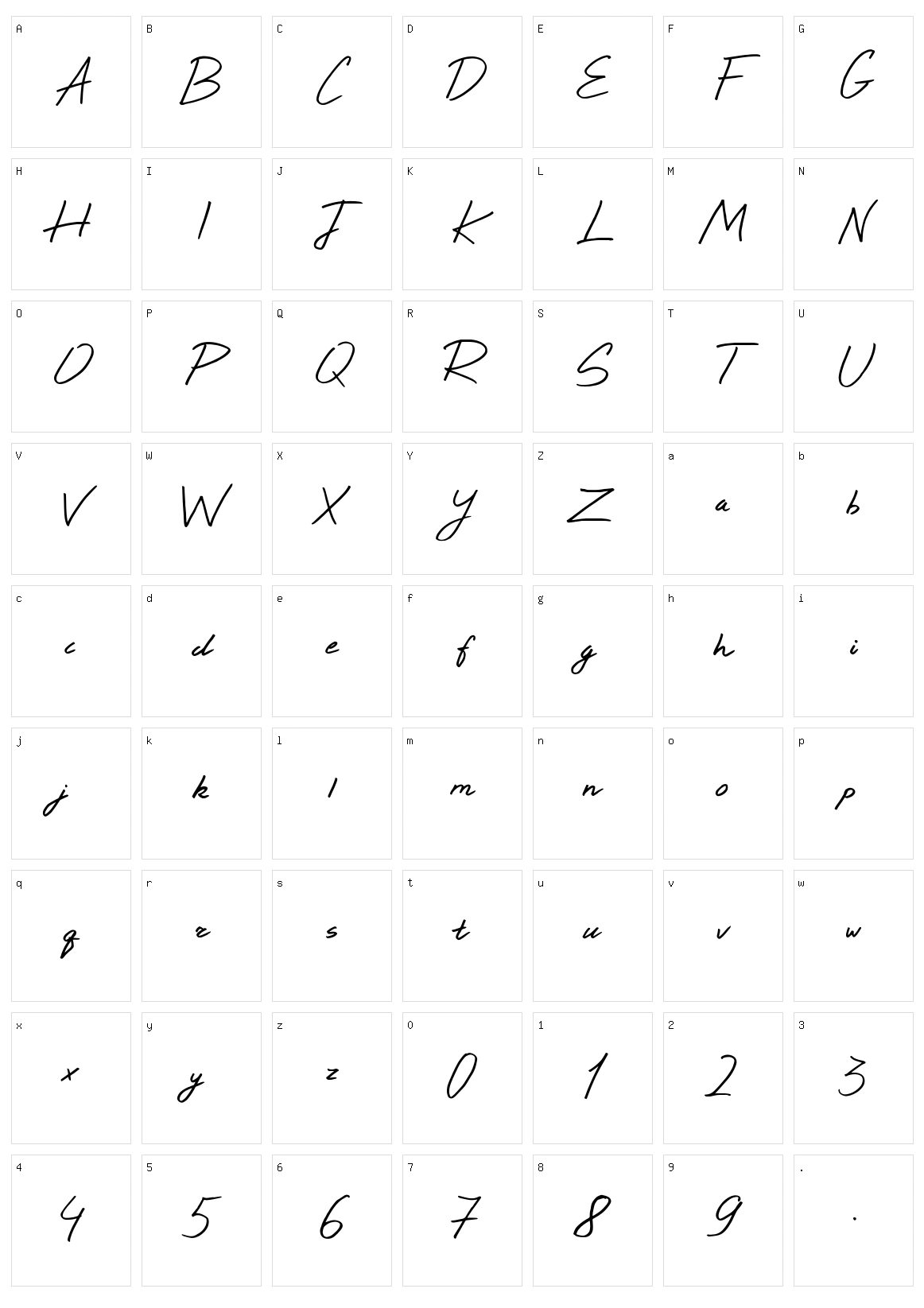
The free font Epic Ride is carefully designed by edvardaso, showcasing a thoughtful balance of creativity and usability and falls under the Script font style. When you download the ZIP file, it contains only 19.08 KB of font files, making it lightweight and quick to download. Please review the license details below to understand permitted usage and distribution rights. If license information is not available, we recommend using this font for personal projects only or contacting the author directly for commercial usage permissions.